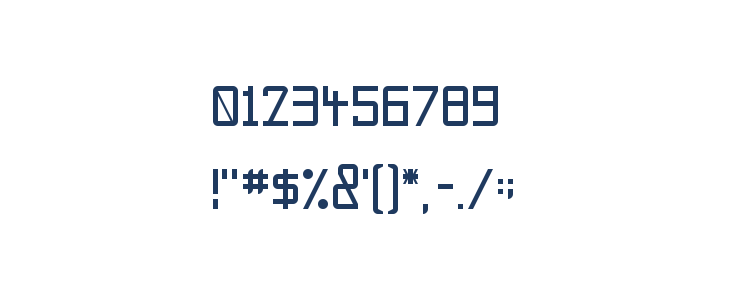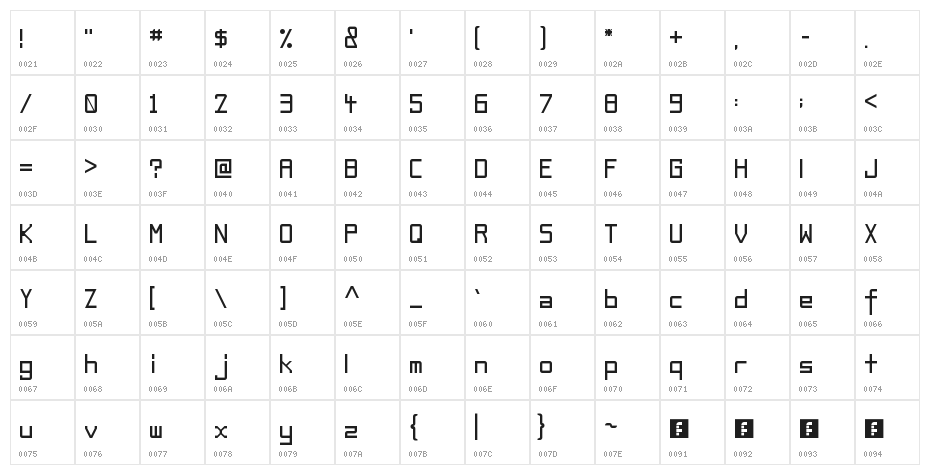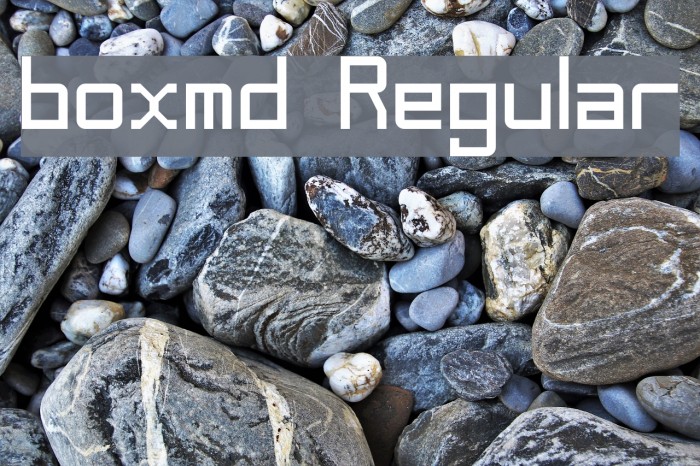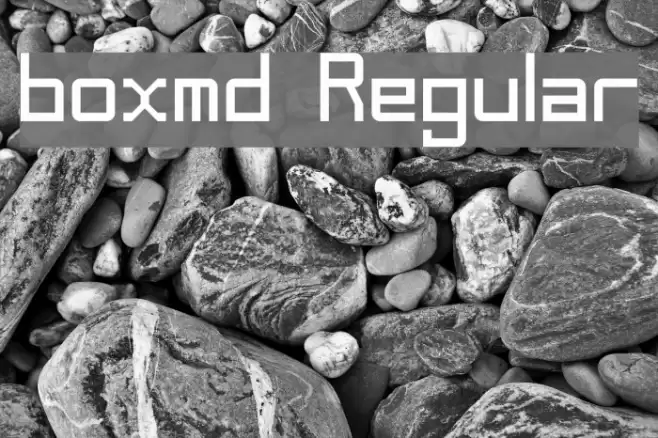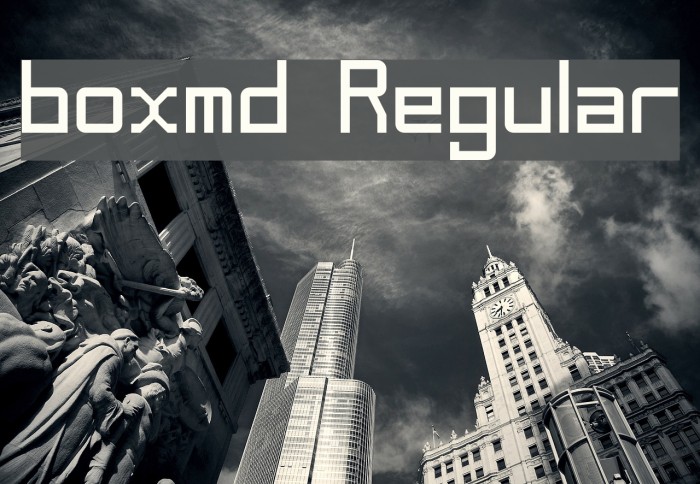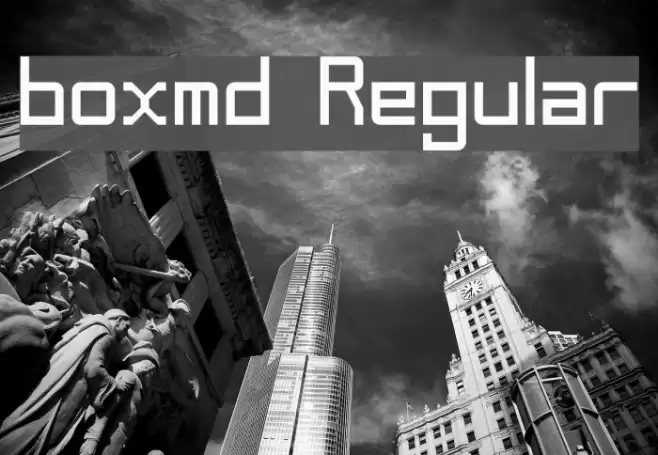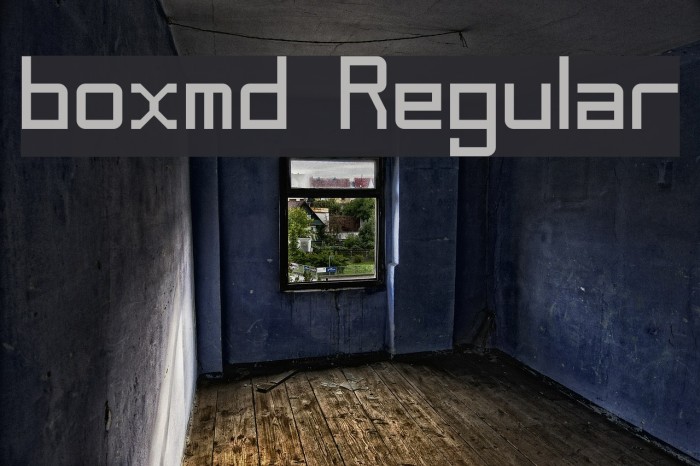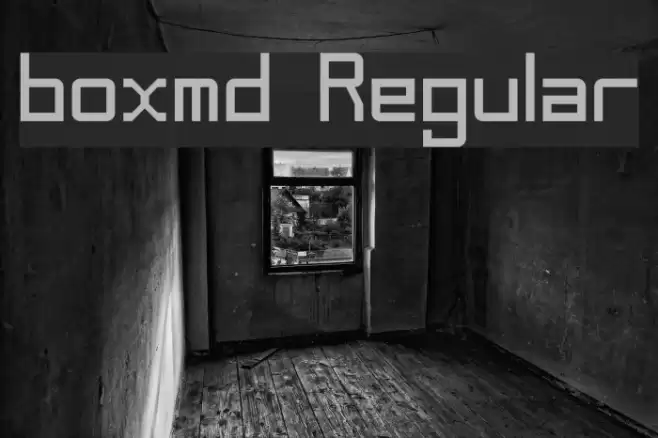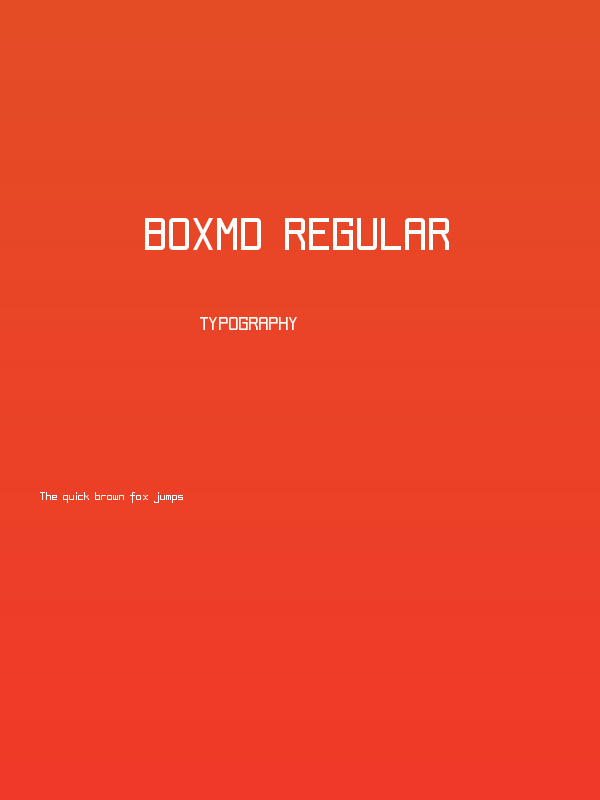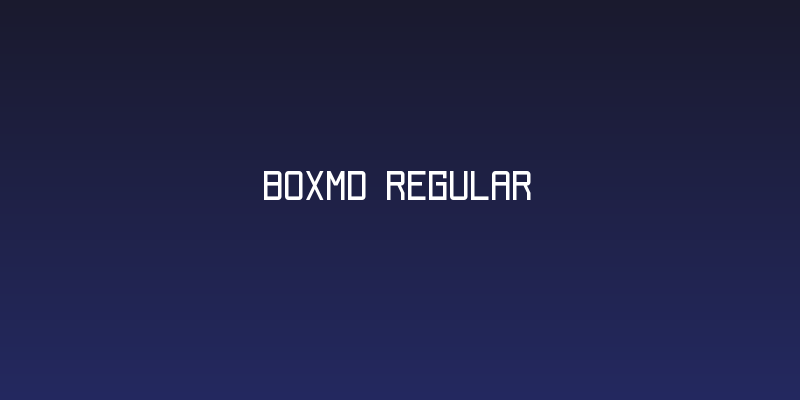
boxmd Regular Font
boxmd Regular Description
This font features a geometric and modern design with a distinct boxy appearance. The characters are uniformly structured with straight lines and sharp angles, giving it a futuristic and technical feel. The uppercase and lowercase letters maintain a consistent height, enhancing its uniformity. The numerals and special characters follow the same geometric style, ensuring a cohesive look across all elements. This font is highly legible and stands out due to its unique design, making it suitable for various creative applications.
Use CaseHeadlines, Logos, Digital Interfaces
Proposed ProjectsIdeal for tech-related branding, digital interfaces, posters, and futuristic design projects.